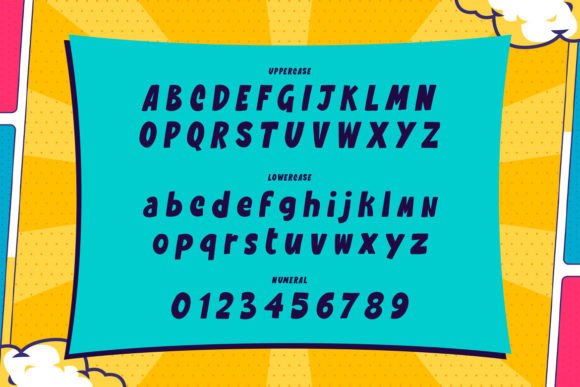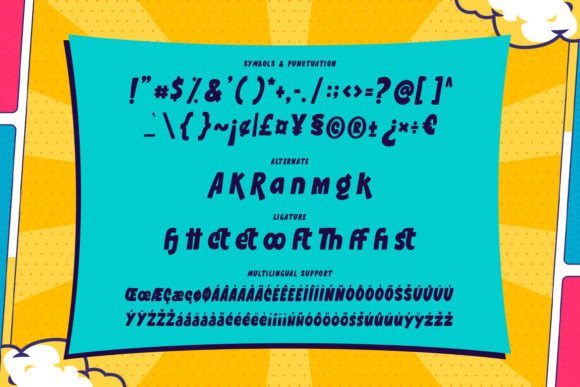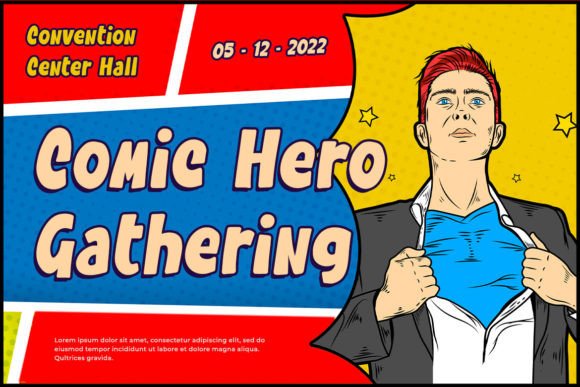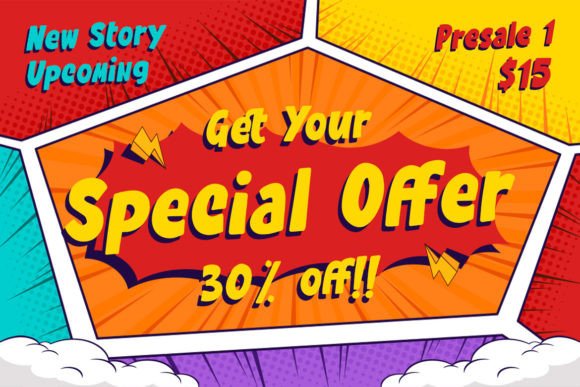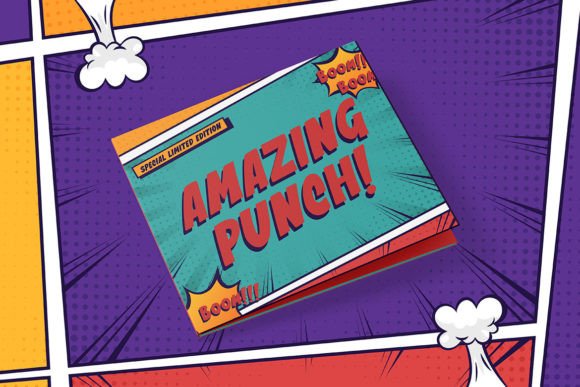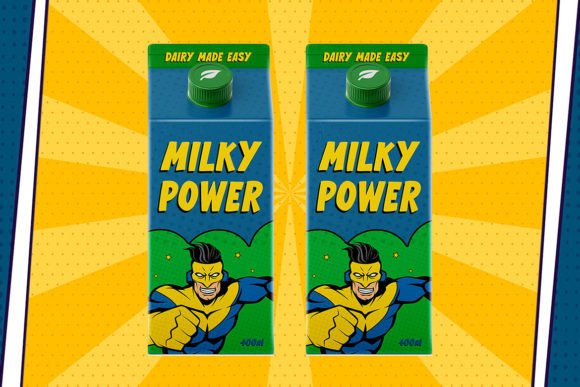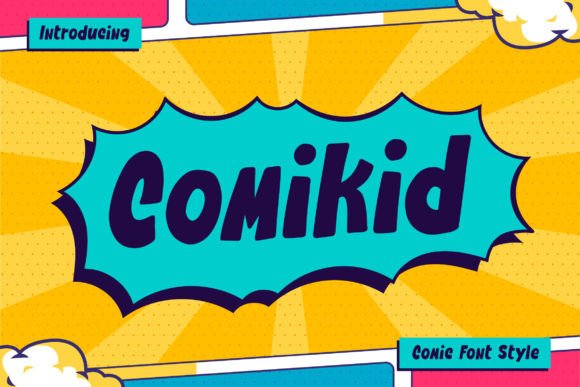
Introducing Comikid Font: The Ultimate Comic Display Font for Designers and Crafters
Are you tired of using the same old fonts for your design projects? Do you want to add a touch of uniqueness and playfulness to your creations? Look no further than Comikid Font, a simple yet striking comic display font that’s sure to turn heads. In this article, we’ll dive into the world of Comikid Font, exploring its features, benefits, and uses, as well as provide tips and inspiration for designers and crafters looking to make the most of this amazing font.
What is Comikid Font?
Comikid Font is a one-of-a-kind comic display font that’s designed to add a dash of fun and personality to any design project. With its unique style and charm, Comikid Font is perfect for designers, crafters, and artists looking to create eye-catching and engaging designs. Whether you’re working on a logo, poster, t-shirt, or social media graphic, Comikid Font is sure to make your design stand out from the crowd.
Key Features of Comikid Font
- Unique Style: Comikid Font boasts a distinctive comic-style design that’s unlike any other font out there. Its bold lines, playful curves, and quirky charm make it a true standout.
- Simple yet Effective: Despite its bold and eye-catching design, Comikid Font is surprisingly simple to use. Its clean and intuitive design makes it easy to pair with other fonts and design elements.
- Highly Versatile: Comikid Font is perfect for a wide range of design projects, from logos and posters to t-shirts and social media graphics.
- Easy to Read: Despite its playful design, Comikid Font is remarkably easy to read, making it perfect for headlines, titles, and short paragraphs of text.
Benefits of Using Comikid Font
So why should you choose Comikid Font for your next design project? Here are just a few benefits of using this amazing font:
- Adds Personality: Comikid Font adds a touch of personality and whimsy to any design project, making it perfect for brands and designers looking to stand out.
- Grabs Attention: With its bold and eye-catching design, Comikid Font is sure to grab attention and draw viewers in.
- Easy to Pair: Comikid Font pairs easily with other fonts and design elements, making it simple to incorporate into your existing design workflow.
- Inspires Creativity: Comikid Font’s unique style and charm are sure to inspire creativity and spark new ideas for your design projects.
Using Comikid Font in Your Design Projects
So how can you use Comikid Font in your design projects? Here are a few ideas to get you started:
- Logos and Branding: Use Comikid Font to create a bold and eye-catching logo that’s sure to stand out.
- Posters and Flyers: Add a touch of personality to your posters and flyers with Comikid Font’s playful design.
- T-Shirts and Merch: Use Comikid Font to create fun and quirky designs for t-shirts, hats, and other merchandise.
- Social Media Graphics: Add a dash of whimsy to your social media graphics with Comikid Font’s unique style.
Tips and Tricks for Working with Comikid Font
Here are a few tips and tricks for getting the most out of Comikid Font:
- Experiment with Colors: Comikid Font looks great in a wide range of colors, so don’t be afraid to experiment and find the perfect hue for your design.
- Pair with Other Fonts: Comikid Font pairs easily with other fonts, so try combining it with a clean sans-serif font for a bold and modern look.
- Use it Sparingly: While Comikid Font is bold and eye-catching, it can be overwhelming if used too much. Use it sparingly to add a touch of personality to your design.
In conclusion, Comikid Font is a simple yet striking comic display font that’s perfect for designers and crafters looking to add a touch of personality and whimsy to their design projects. With its unique style, bold design, and ease of use, Comikid Font is sure to inspire creativity and turn any design project into a true standout. So why wait? Download Comikid Font today and start adding a dash of fun and personality to your designs!